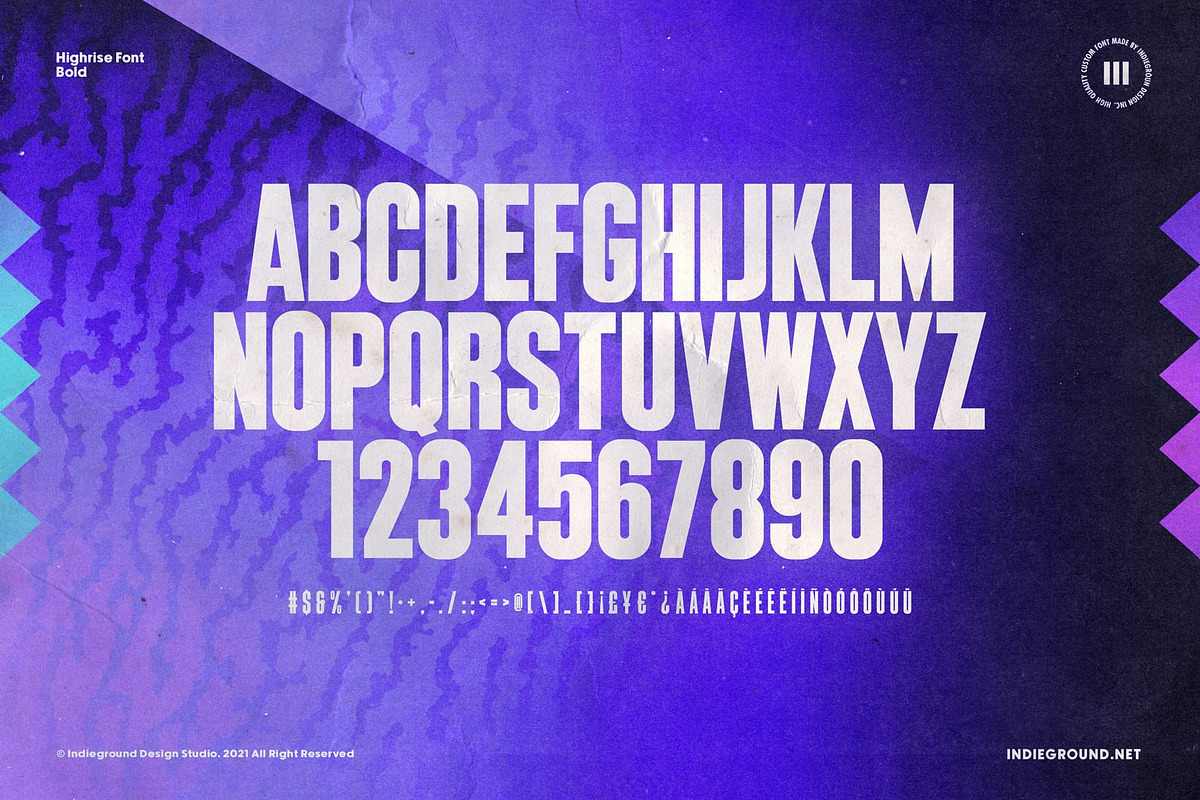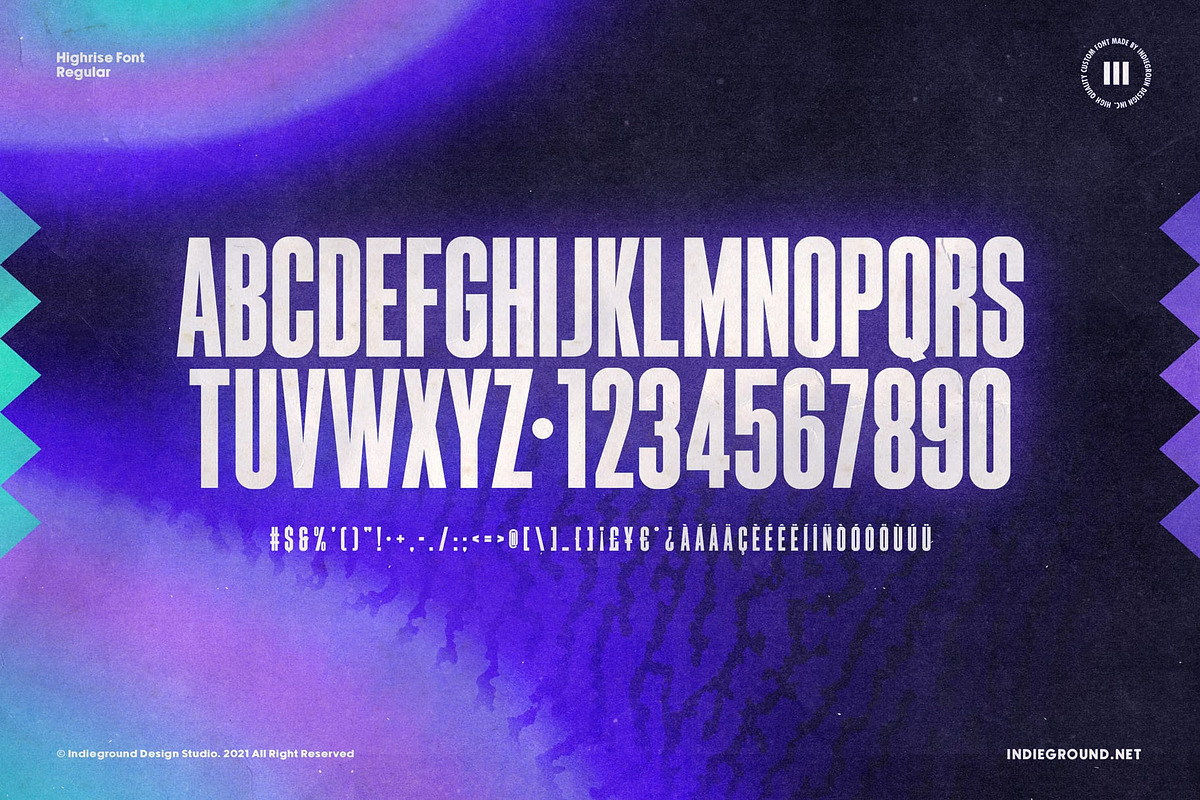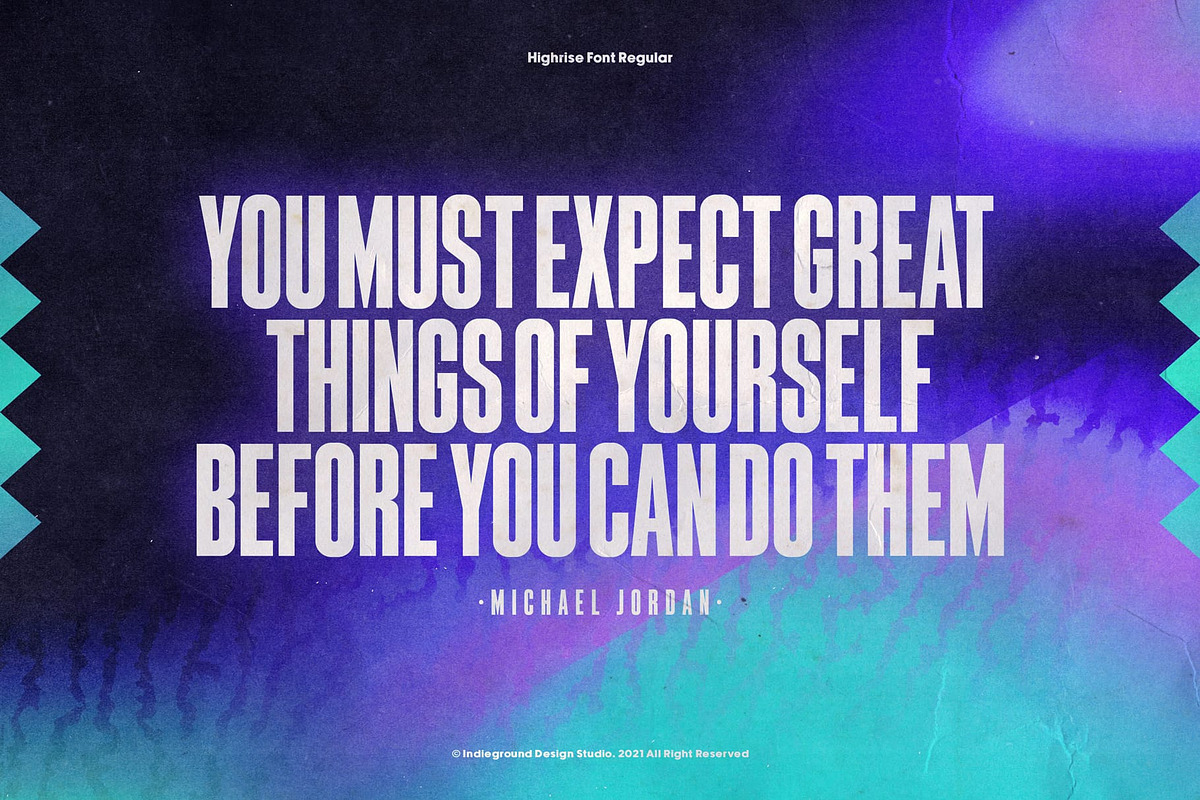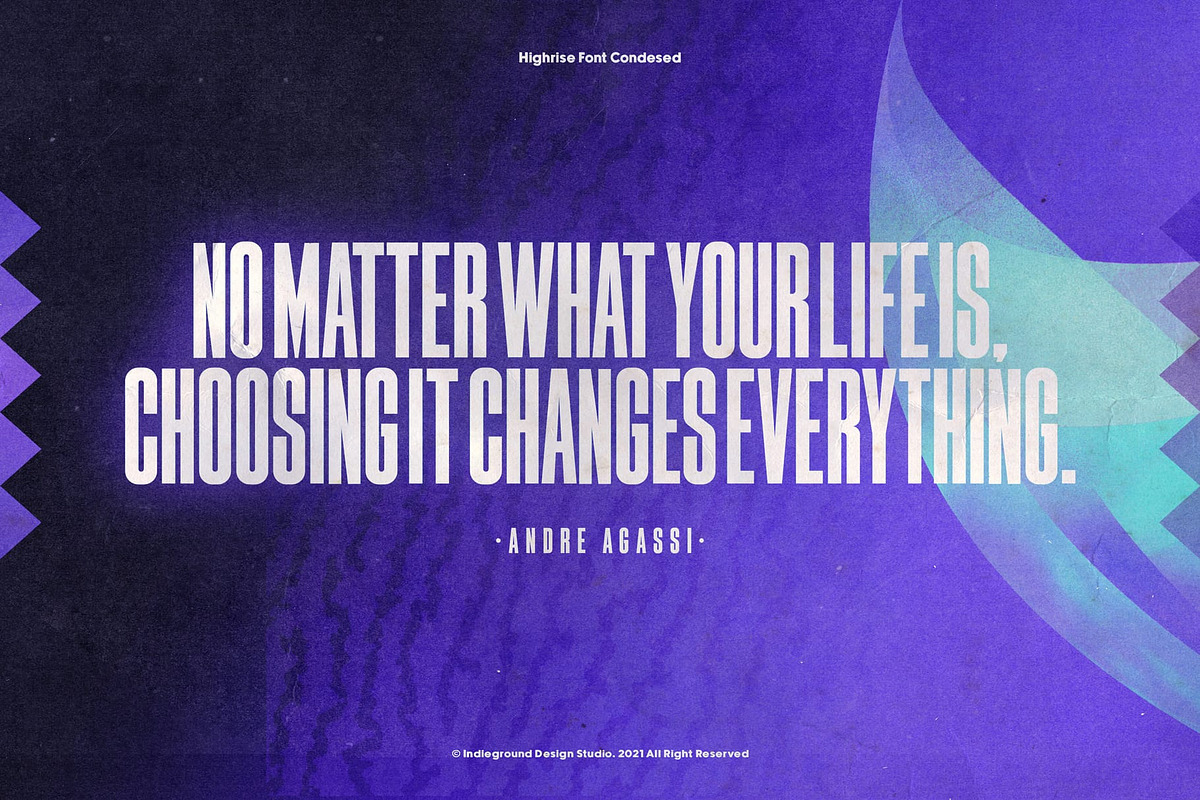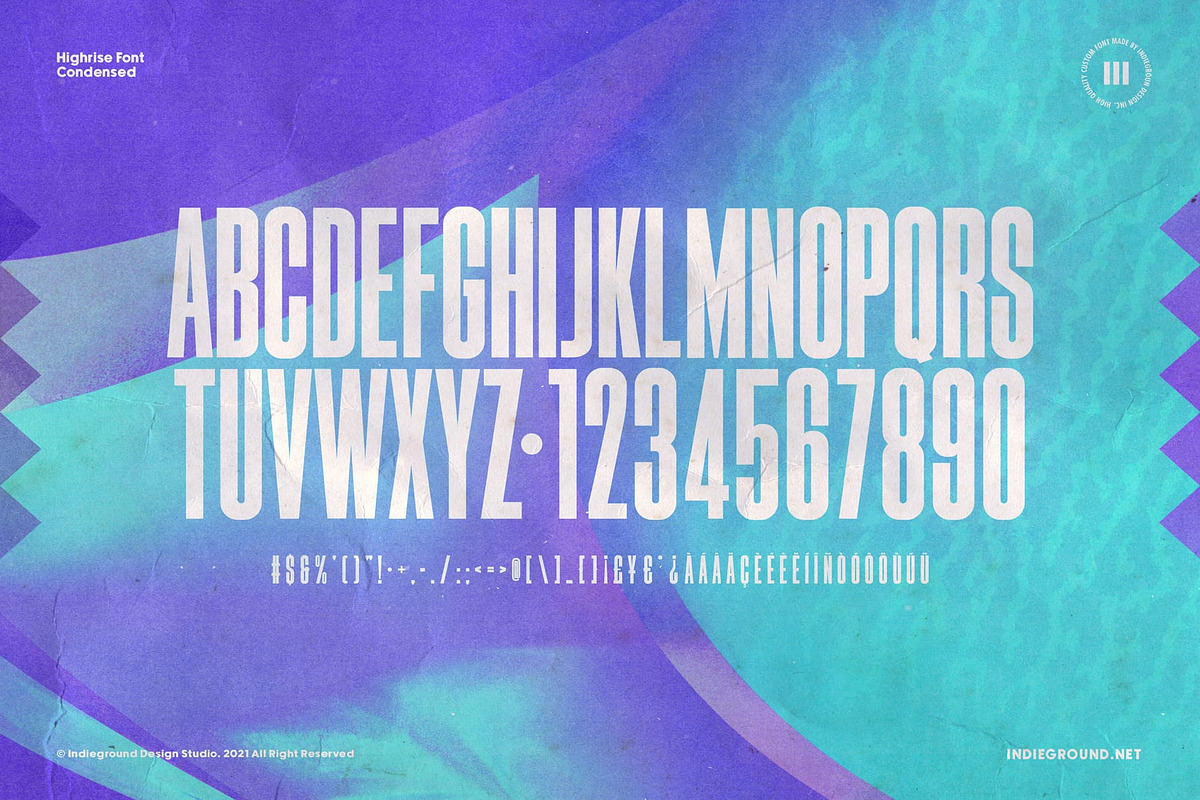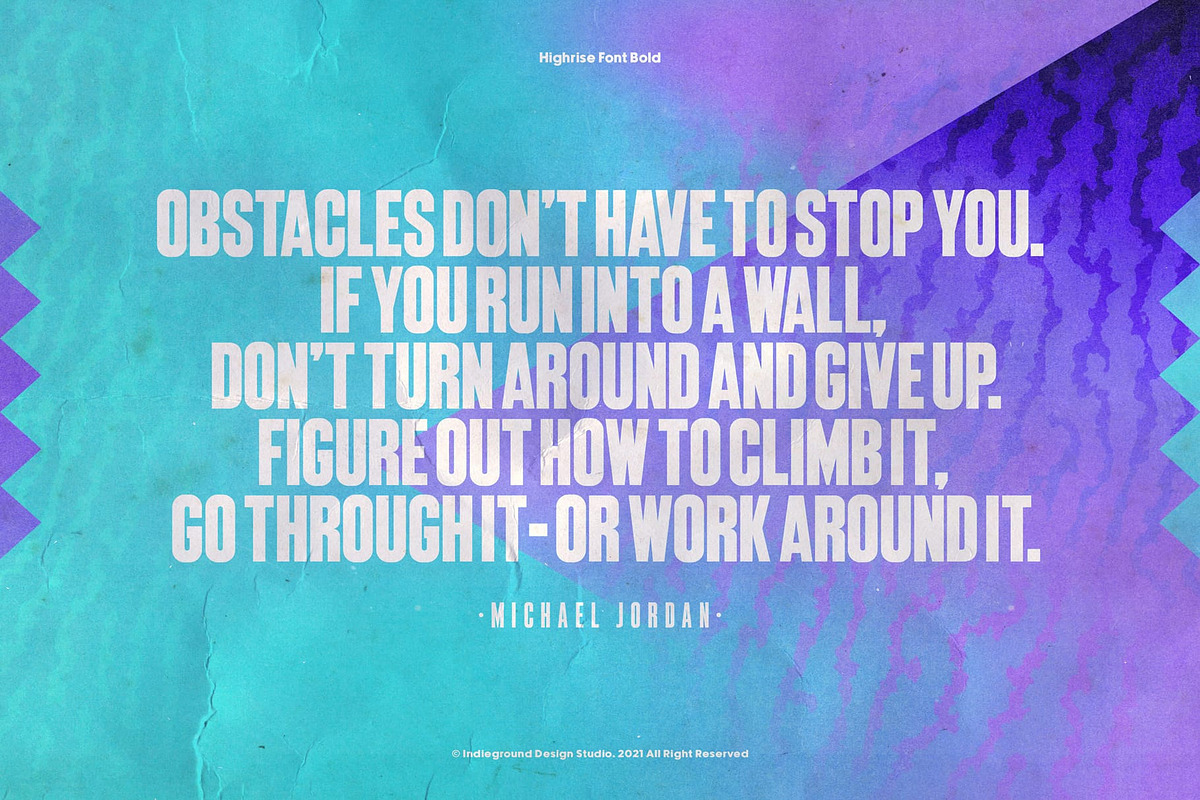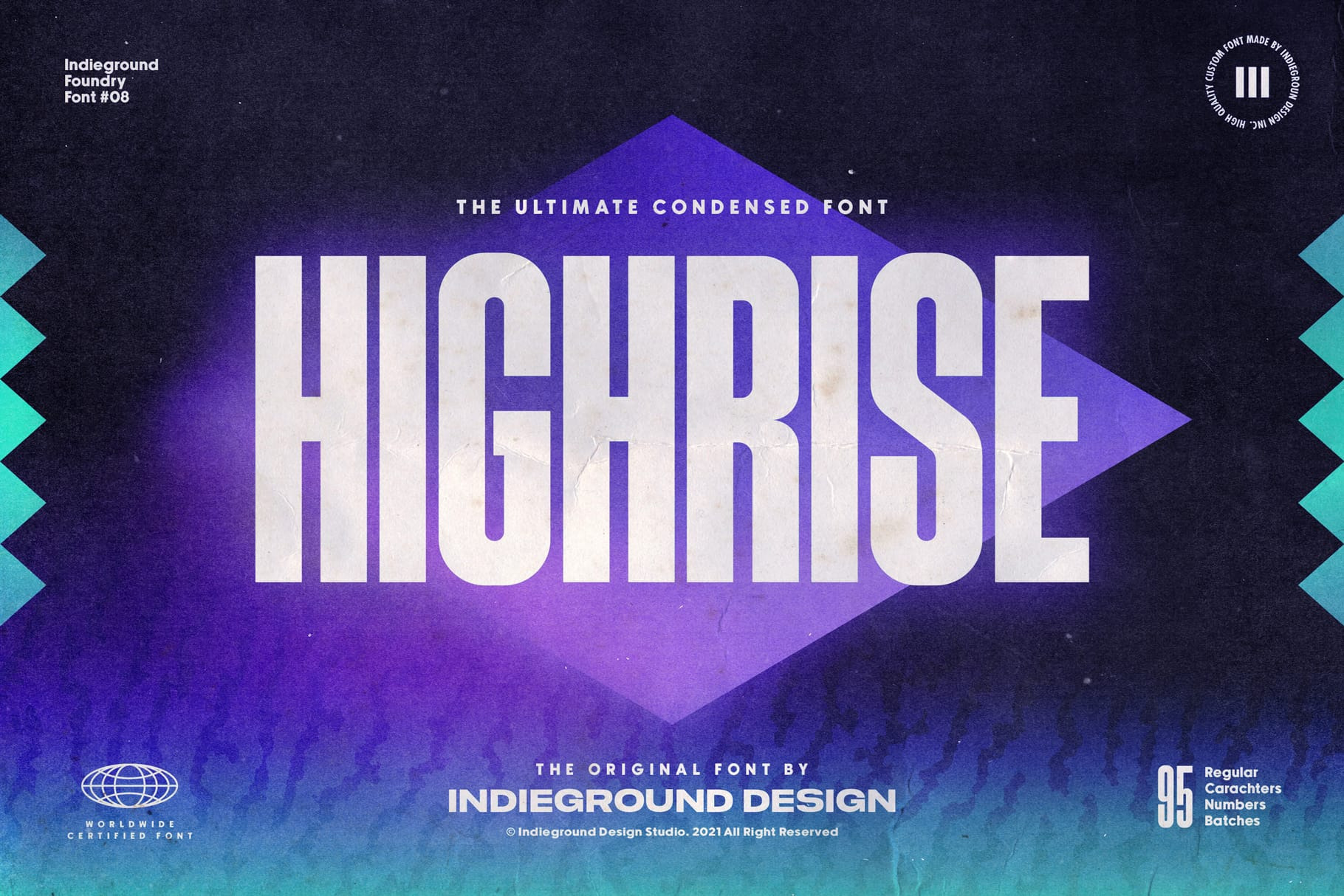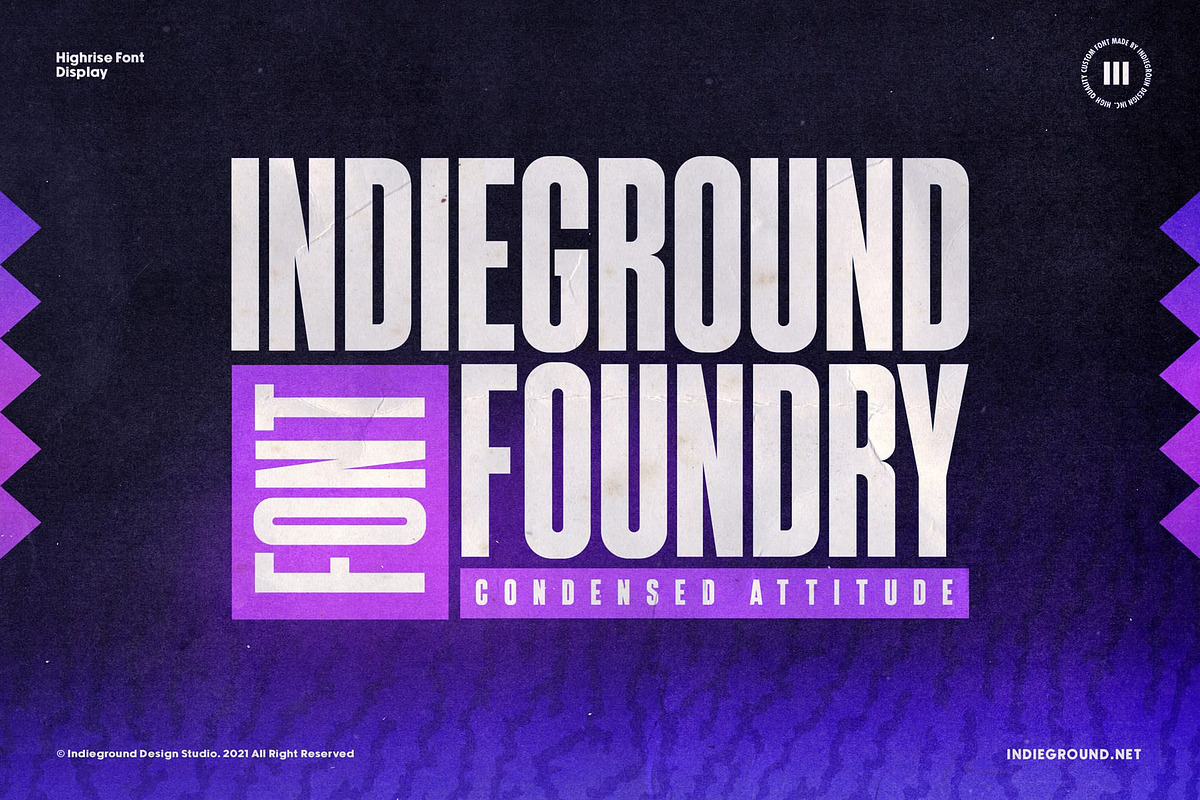
Highrise Font
Highrise Font by Indieground This condensed display font made by the Indieground Team is perfect for your heavy titles and headlines. It gives an iconic style and boldness to the typography of your artworks, both retro and modern. It fits every graphic design or typography-related project. A font with a minimal atmosphere that will give a cool style and weight to all your artistic compositions. This regular commercial version includes the 3 different condensed font-weights with their full characters set shown in the preview.